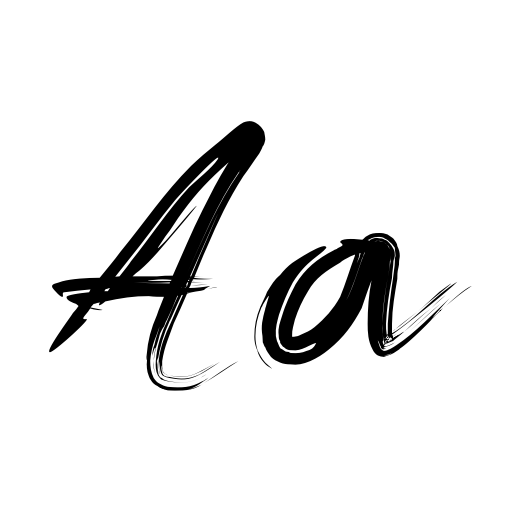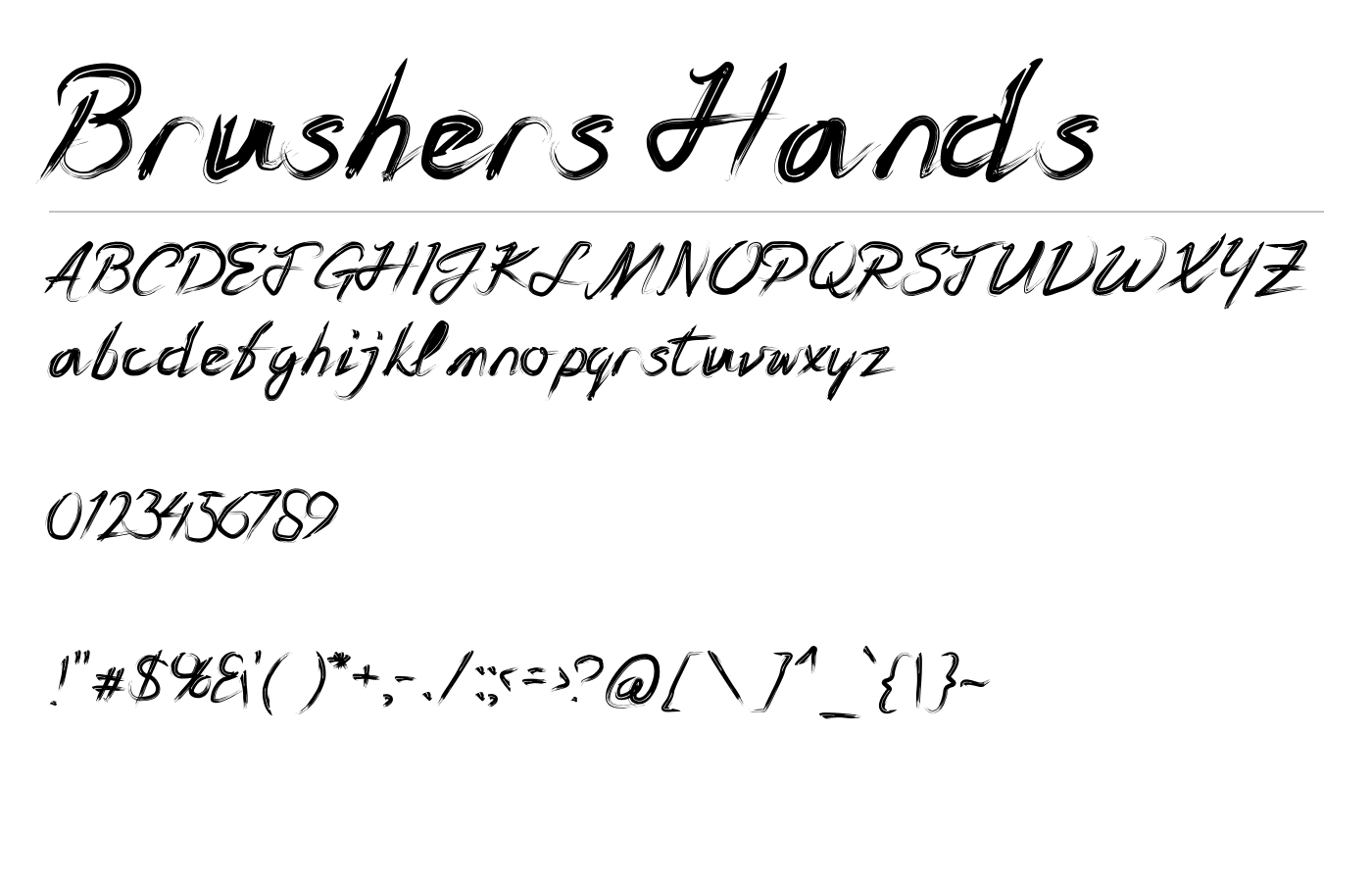
Brushers Hands is a lively, expressive script font that mimics dynamic brush strokes with varied thickness and a natural, hand-painted feel. Its fluid letterforms, with distinctive, slightly textured edges, bring an artistic and casual charm that suits creative projects, branding, and invitations looking for a personal, handcrafted touch. This font works best where warmth and individuality are key, adding a bold yet approachable style to headlines, logos, and packaging.
Brushers Hands Font
About Brushers Hands Font